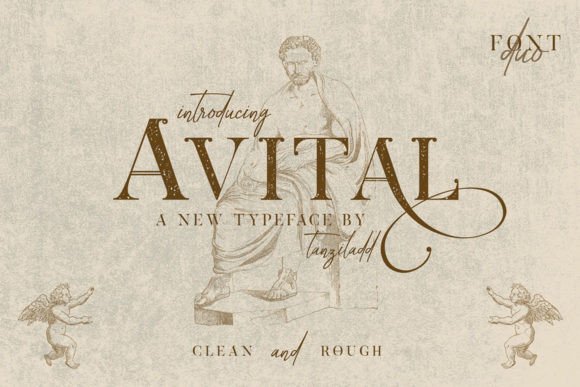
Venture into a world of timeless elegance with Avital Font, a serif masterpiece that captures the essence of vintage charm. This meticulously crafted font, brought to life by the talented JumboDesign, is a true gem for designers seeking to infuse their creations with a touch of sophistication and allure.
Adorned with thin, graceful strokes, Avital Font exudes an air of refinement and delicacy. Its bold serifs, standing tall and proud, add a touch of strength and character, creating a captivating visual contrast that draws the eye. This enchanting font is a symphony of harmonious proportions, inviting you to embark on a journey of creativity and imagination.
With Avital Font, your designs will transcend the ordinary, captivating audiences with their timeless appeal. Envision wedding invitations adorned with the delicate curves of Avital Font, radiating elegance and romance. Craft mesmerizing headlines that command attention, leaving an indelible mark on readers' minds. Elevate your branding materials with a touch of vintage charm, exuding professionalism and sophistication.
Avital Font is more than just a collection of letters; it's a gateway to a world of endless creative possibilities. Its versatility knows no bounds, effortlessly complementing a diverse range of design projects. Whether you're designing logos, posters, flyers, or social media graphics, Avital Font will elevate your work, transforming it into a visual masterpiece.
As you explore the depths of Avital Font, you'll discover a font that breathes life into your designs. Its timeless essence will endure, transcending fleeting trends and captivating audiences for generations to come. Invest in Avital Font today and unlock the door to a world of creativity, elegance, and sophistication.